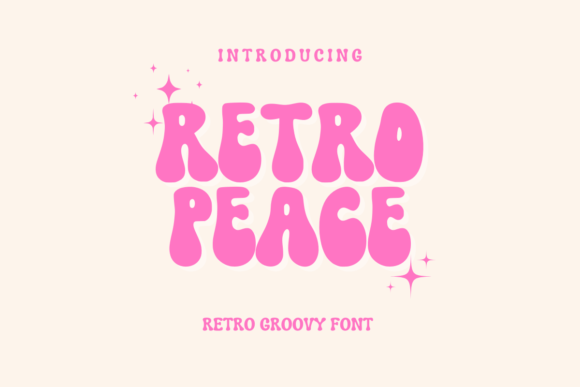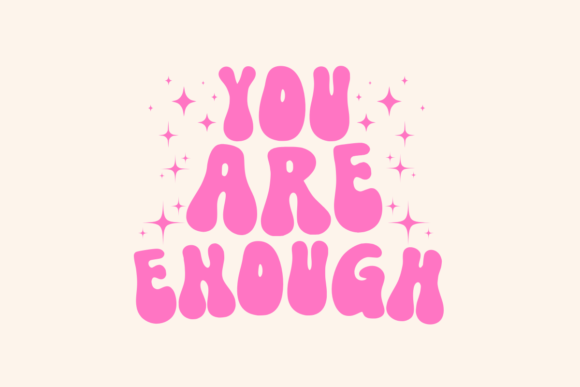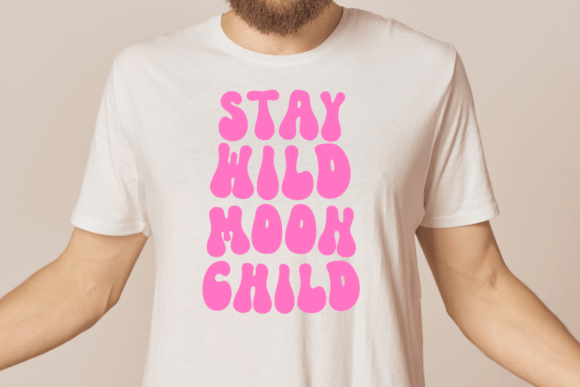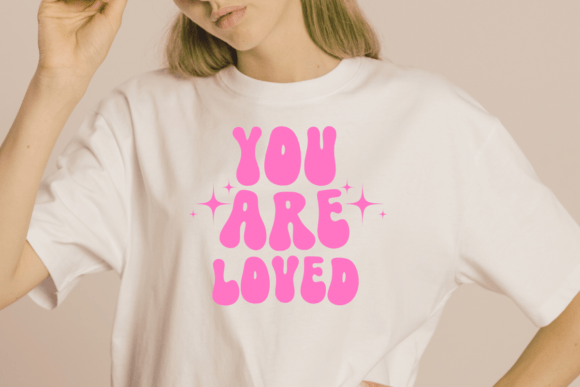
Retro Peace Font
About the Retro Peace Font
Add a touch of class to your work with the Retro Peace Font, a truly exceptional typeface. Retro Peace is a cute and quirky display font. It will add an incredibly joyful touch to your designs. Add this beautiful display font to each of your creative ideas and notice how it makes them stand out!
Retro Peace excels as a display font for headlines, posters, and branding projects requiring a playful, nostalgic feel. Its quirky charm works well in children’s book illustrations, vintage-inspired designs, and projects emphasizing fun and lightheartedness. However, its low x-height and unique letterforms make it unsuitable for body text or UI elements where readability is paramount.
Pairing Retro Peace effectively requires considering its retro-inspired character. A clean sans-serif like Open Sans or a geometric sans-serif such as Futura would provide a modern counterpoint, balancing its whimsical nature. For a more vintage feel, a classic serif font like Garamond or a slightly more playful serif such as Playfair Display could be considered.
The font’s core personality is undeniably cheerful and slightly retro; think 70s-inspired designs with a contemporary twist. It’s best suited for brands or projects seeking a friendly, approachable, and memorable visual identity.
Retro Peace Font Usage Examples
Retro Peace Font Example